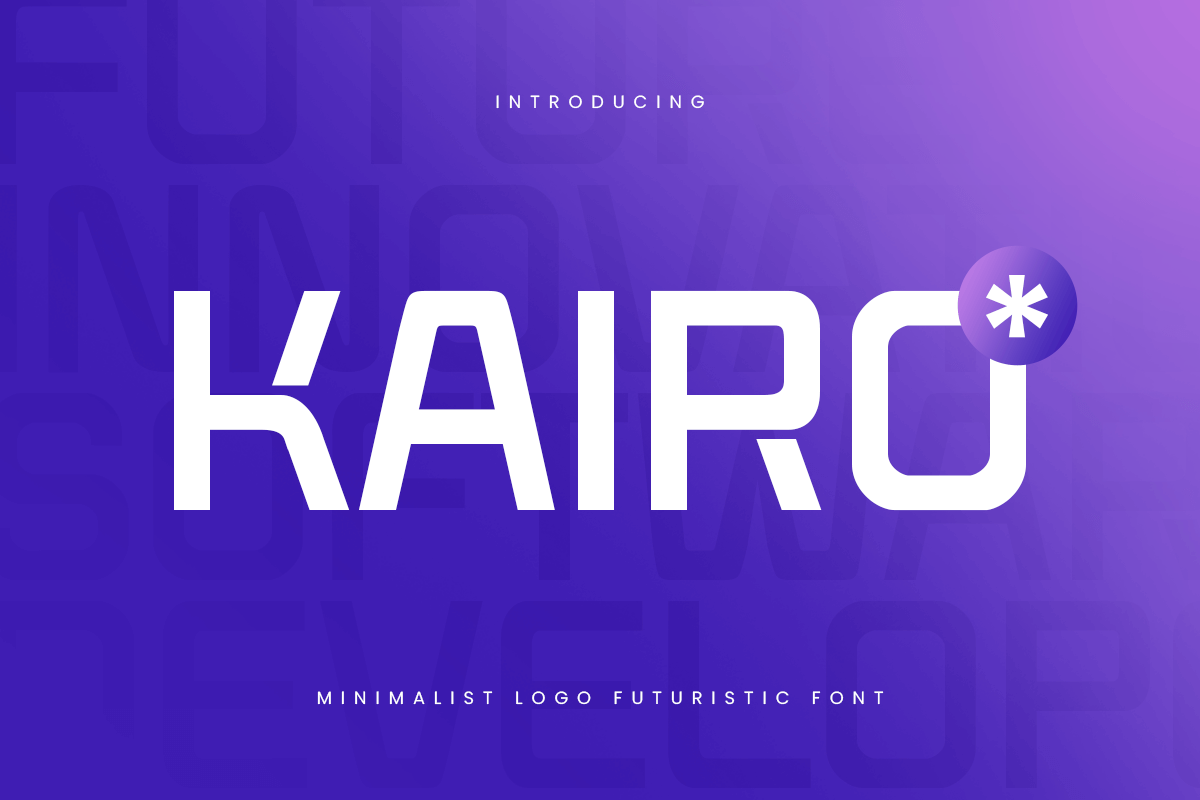
Kairo
-Minimalist Logo Futuristic Font
Kairo
KAIRO, a Minimalist Logo Futuristic Font that created special Branding, Title and more stand-out typography for Techno and Futuristic. It's so perfect to add your style and headline overview for Sci-fi, Technology, Futuristic, and Modern themes. And specially for this font, we crafted it for a Modern Techno style and Masculine feel so enjoy creating any project that will show your main idea out.